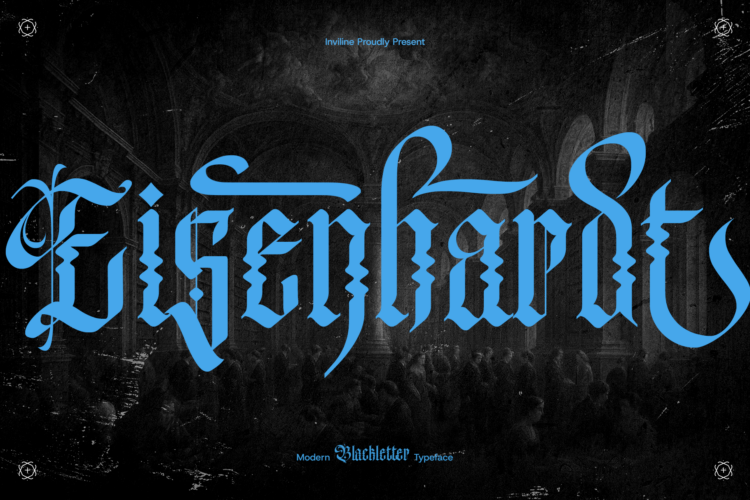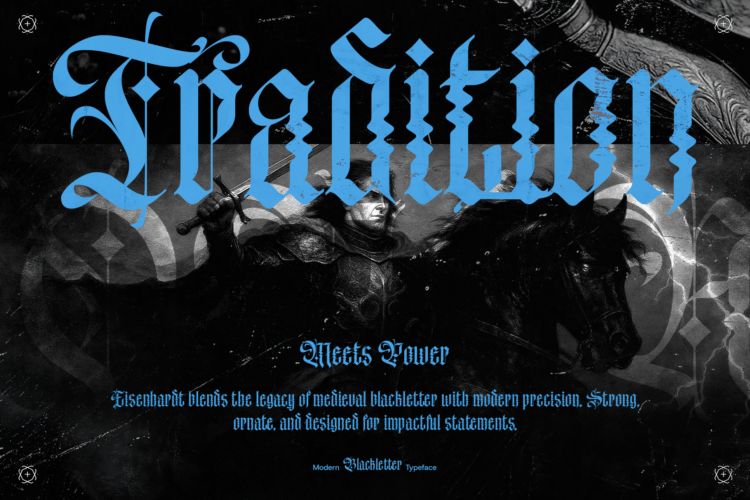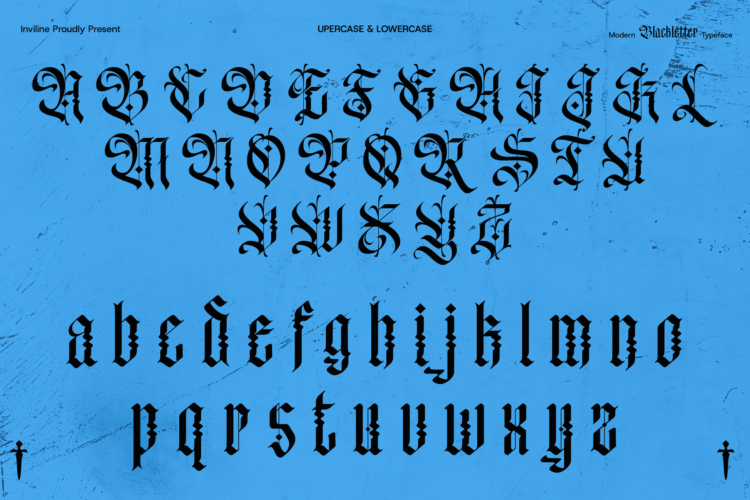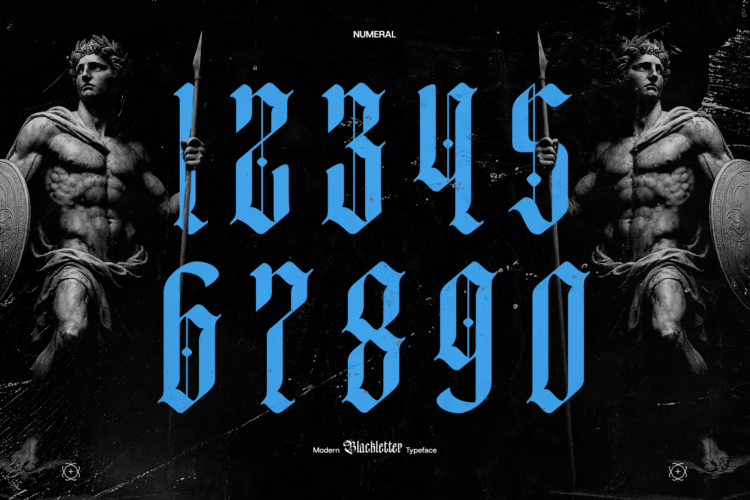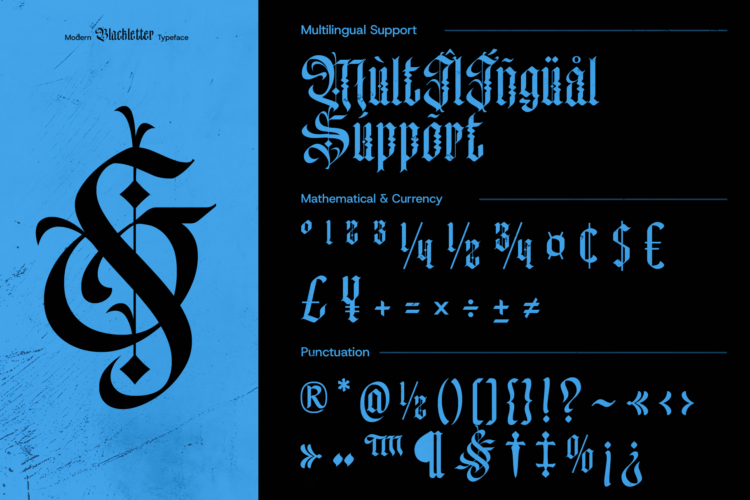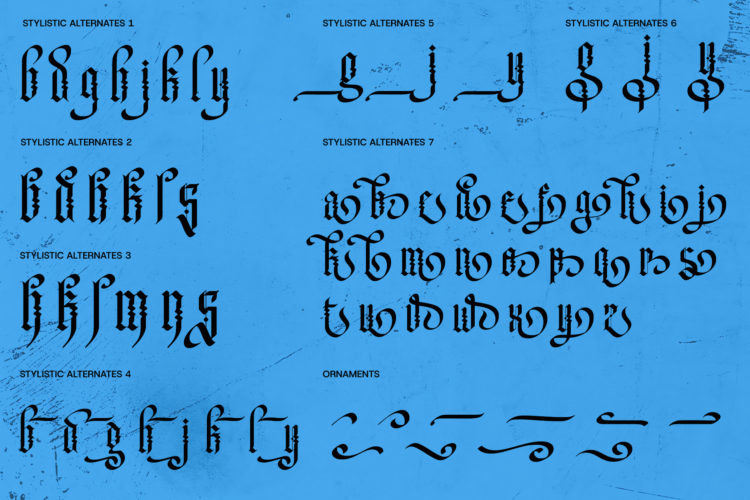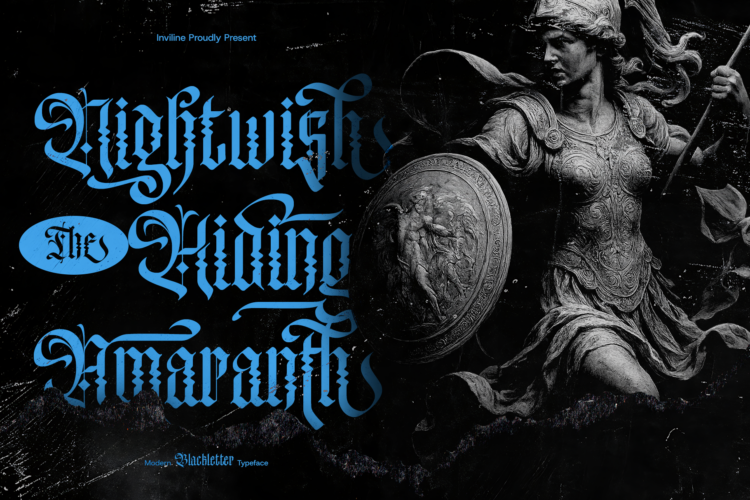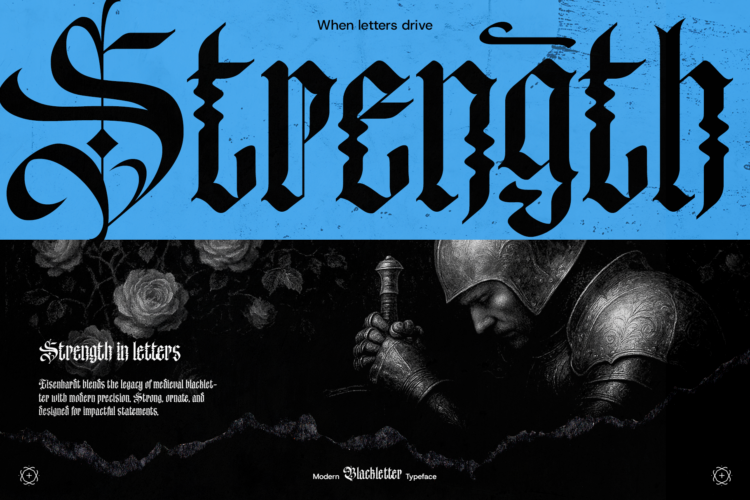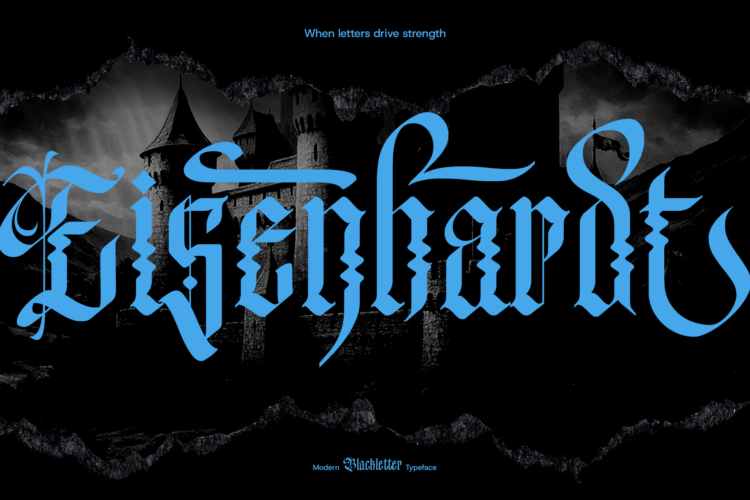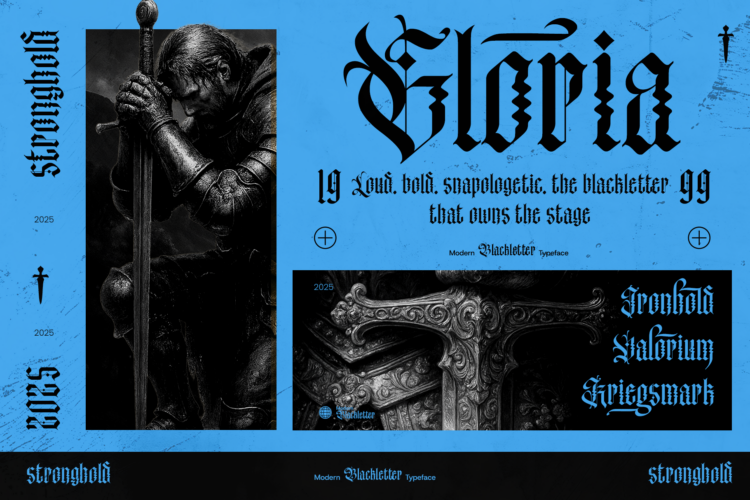
Eisenhardt – Gothic Blackletter Font
Eisenhardt is a modern blackletter font with strong gothic roots and contemporary flair. Inspired by medieval scripts and cathedral inscriptions, this typeface delivers an imposing visual experience through its sharp serifs, tall forms, and edgy detailing. Perfectly balanced between dark elegance and bold power, Eisenhardt is made for designers who dare to stand out.
Whether you’re creating band merchandise, streetwear branding, gothic posters, or ritualistic packaging, Eisenhardt gives your typography a commanding presence. The intricate ligatures and alternate characters bring diversity and authenticity to your compositions.
Perfect For :
- Metal & Rock Band Logos
- Gothic Posters & Album Covers
- Tattoo Studio Branding
- Streetwear & Apparel Design
- Horror & Occult Book Titles
- Church or Medieval-themed Graphics
- Cinematic Movie Titles